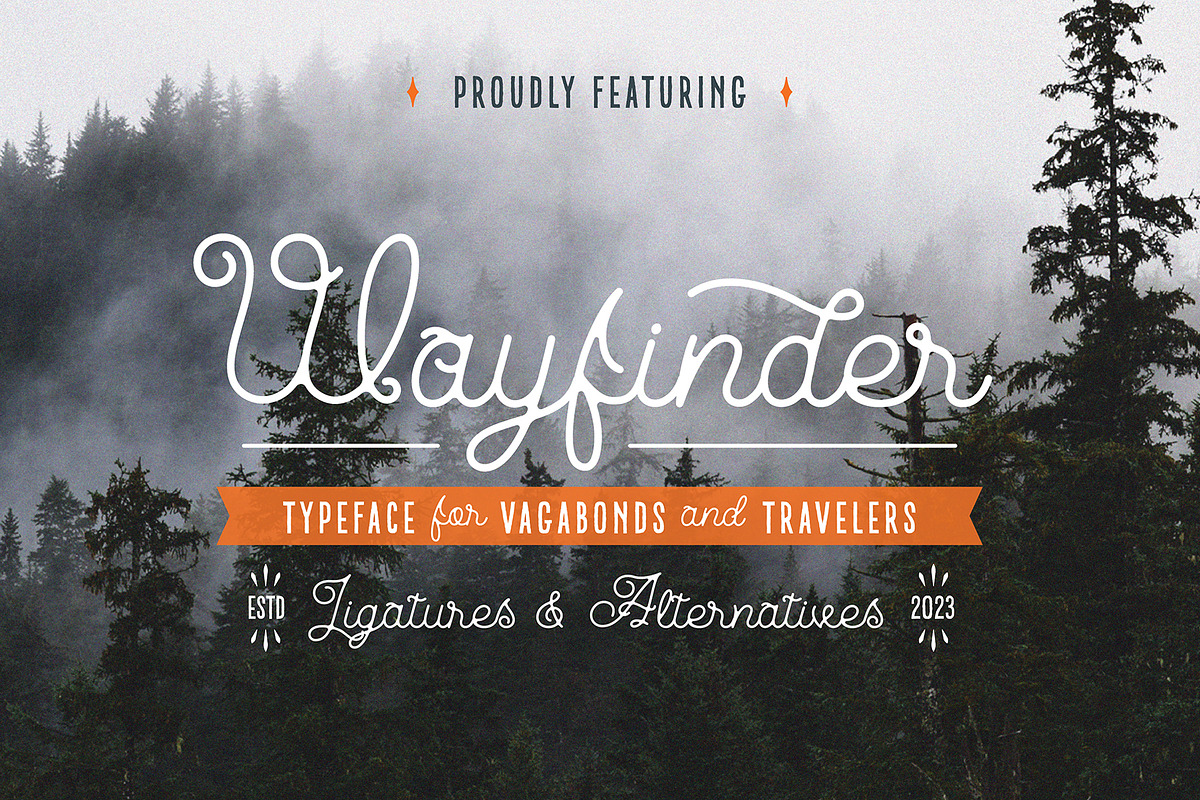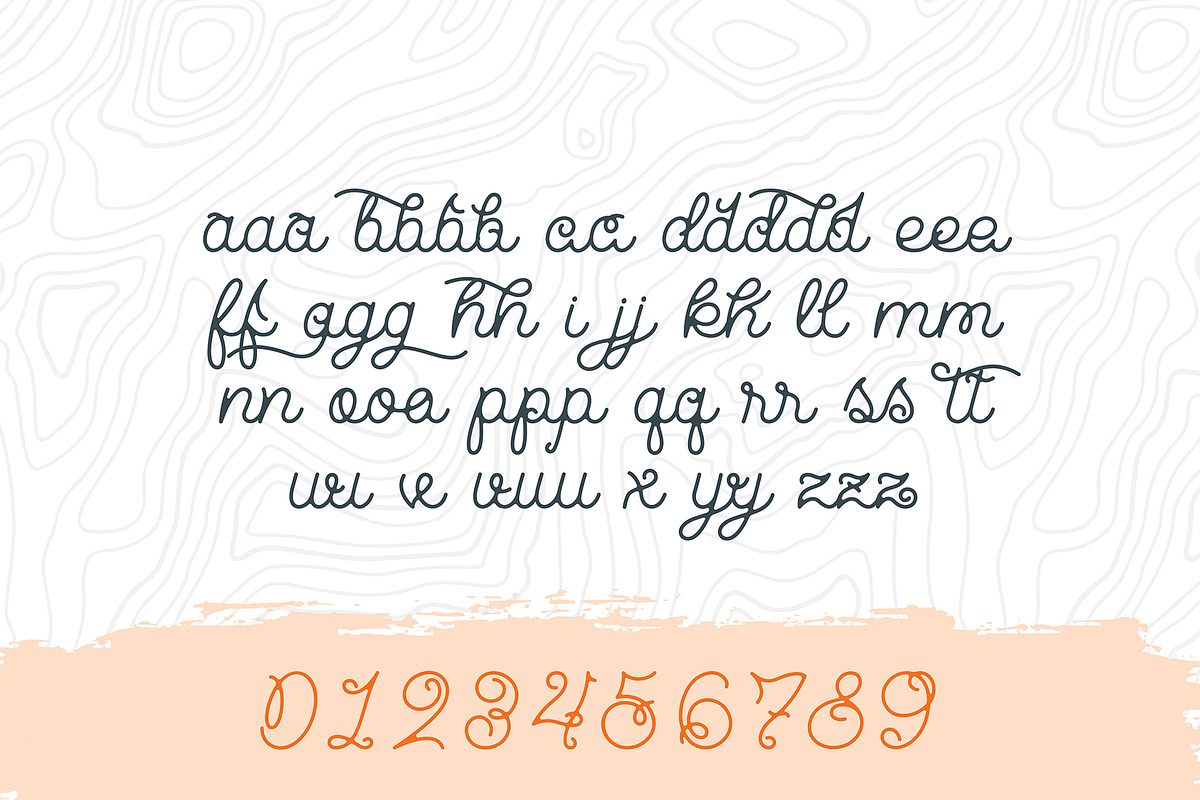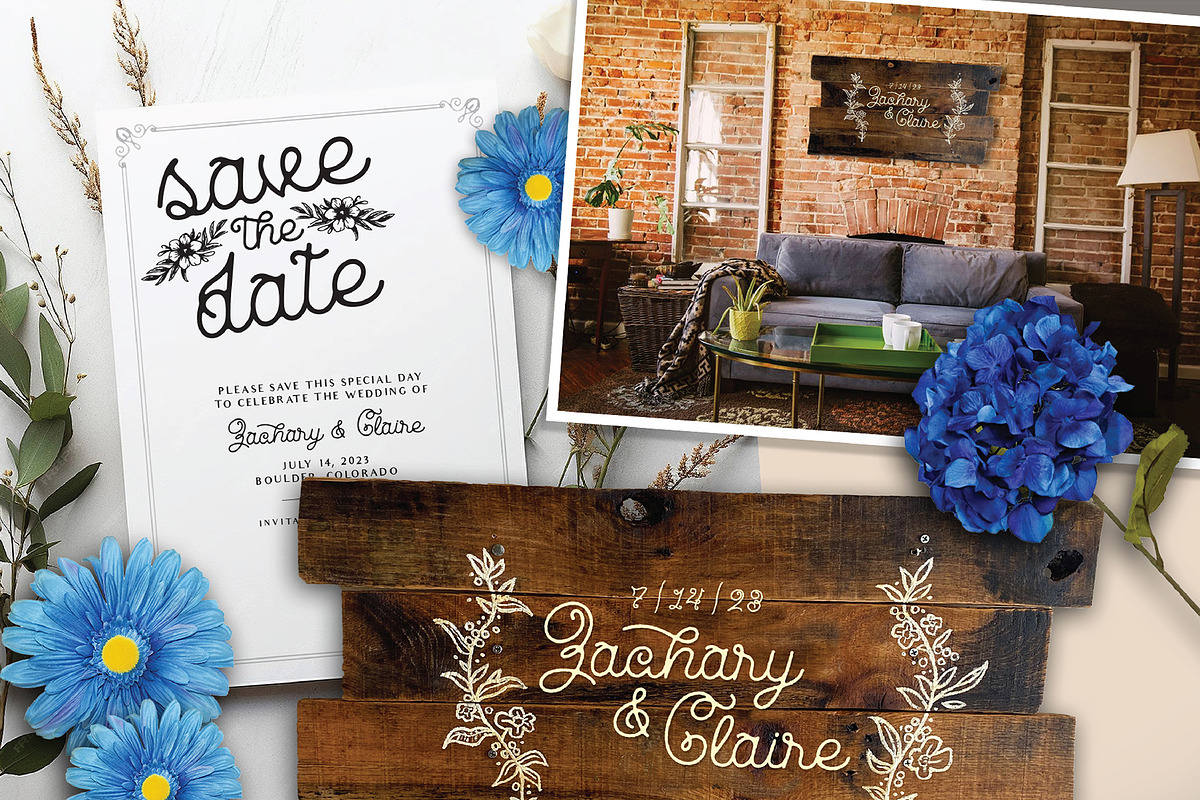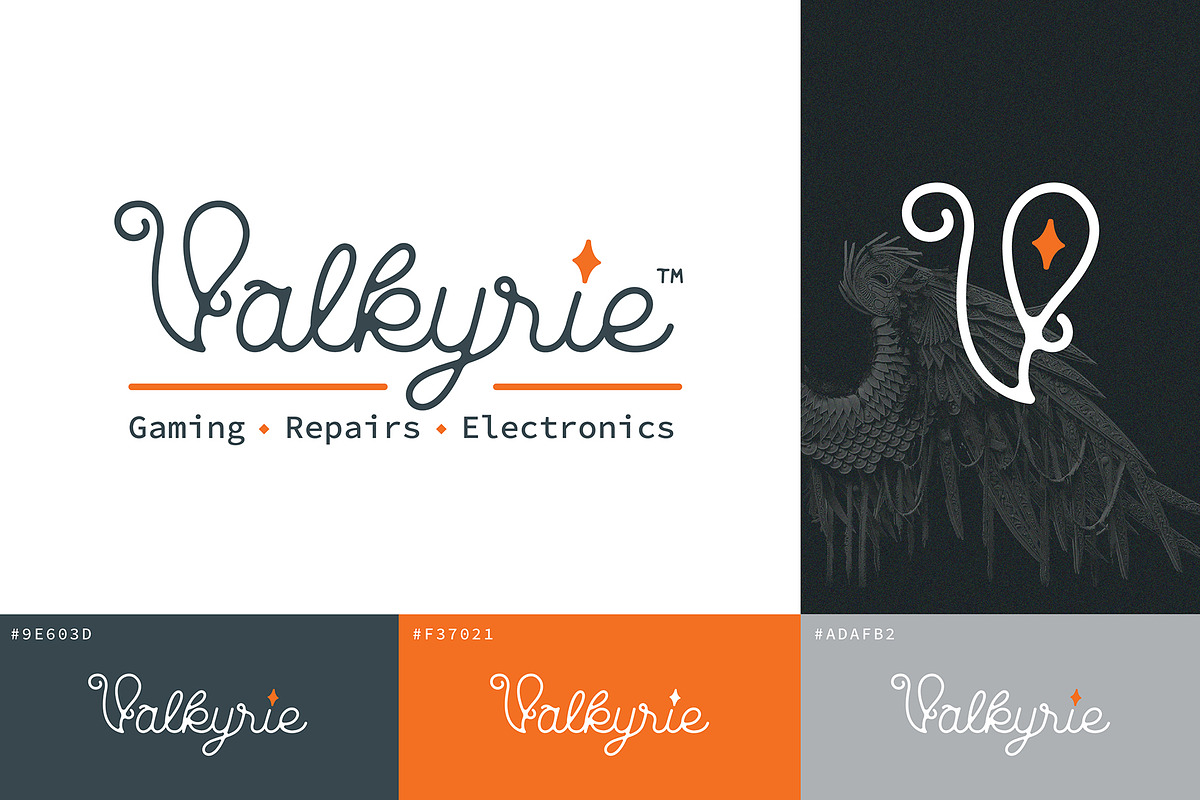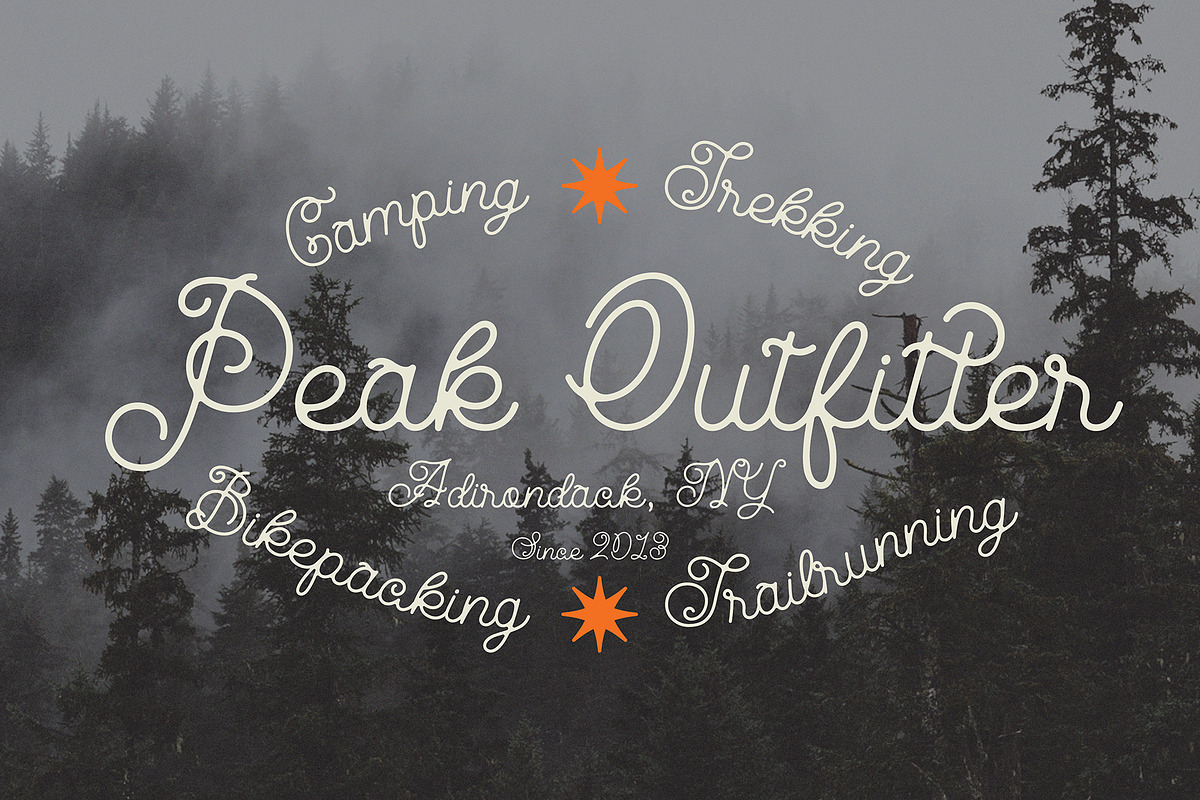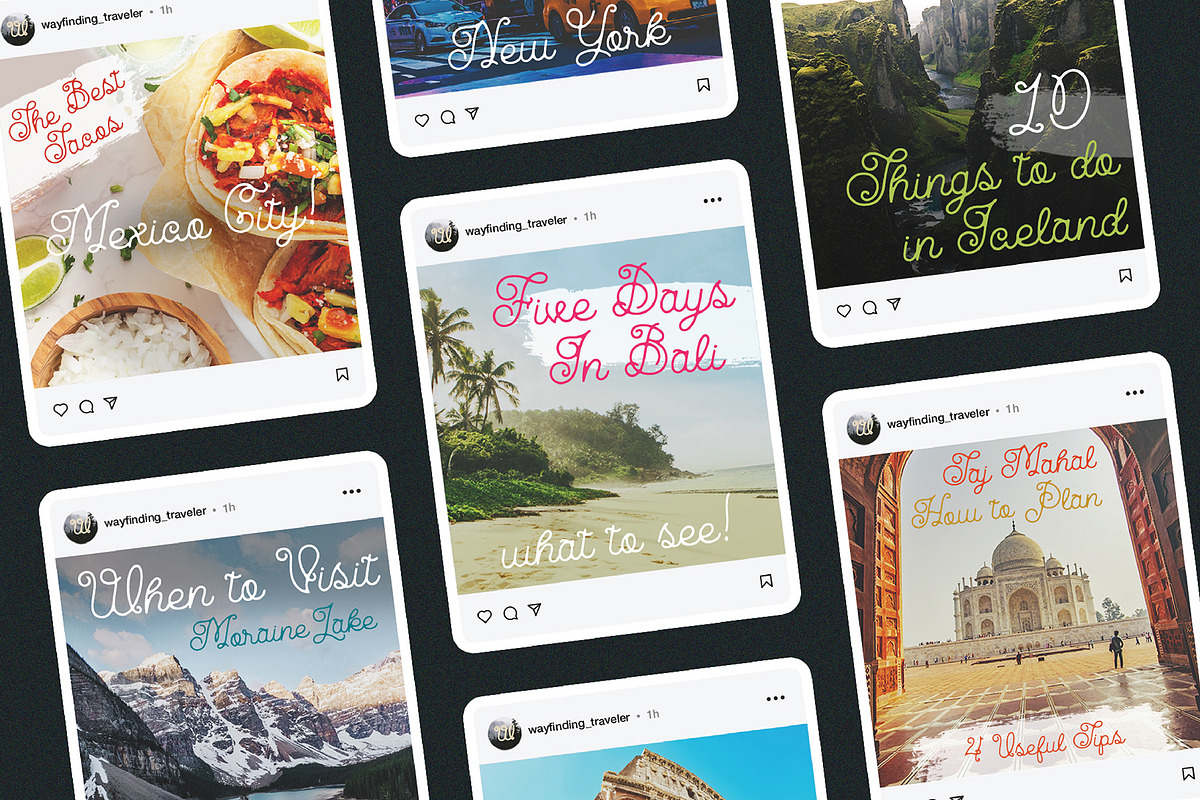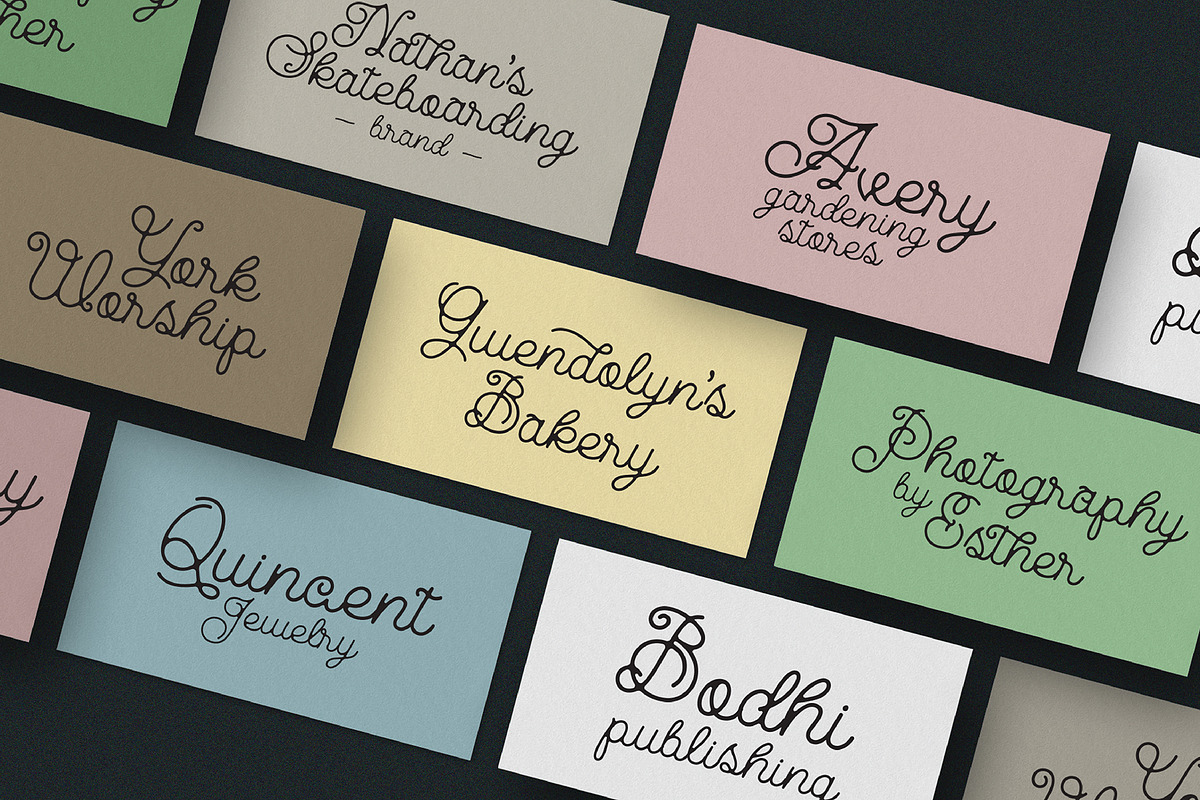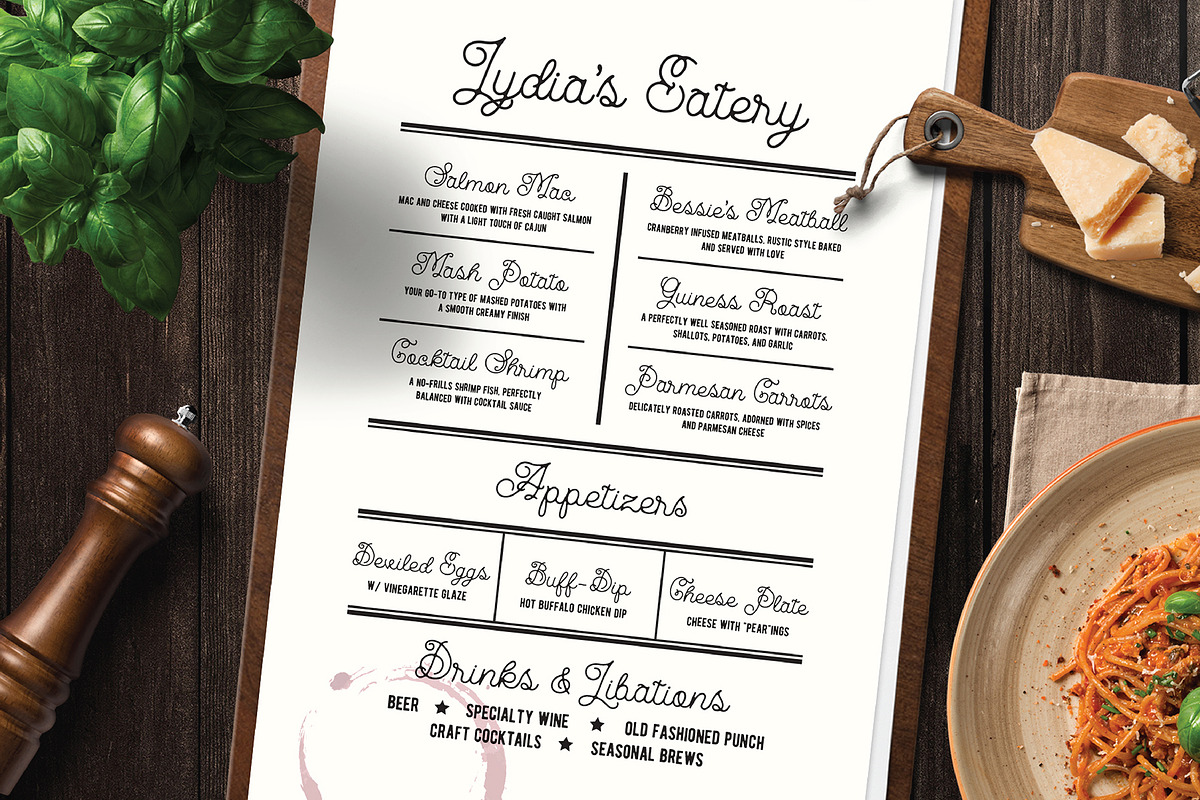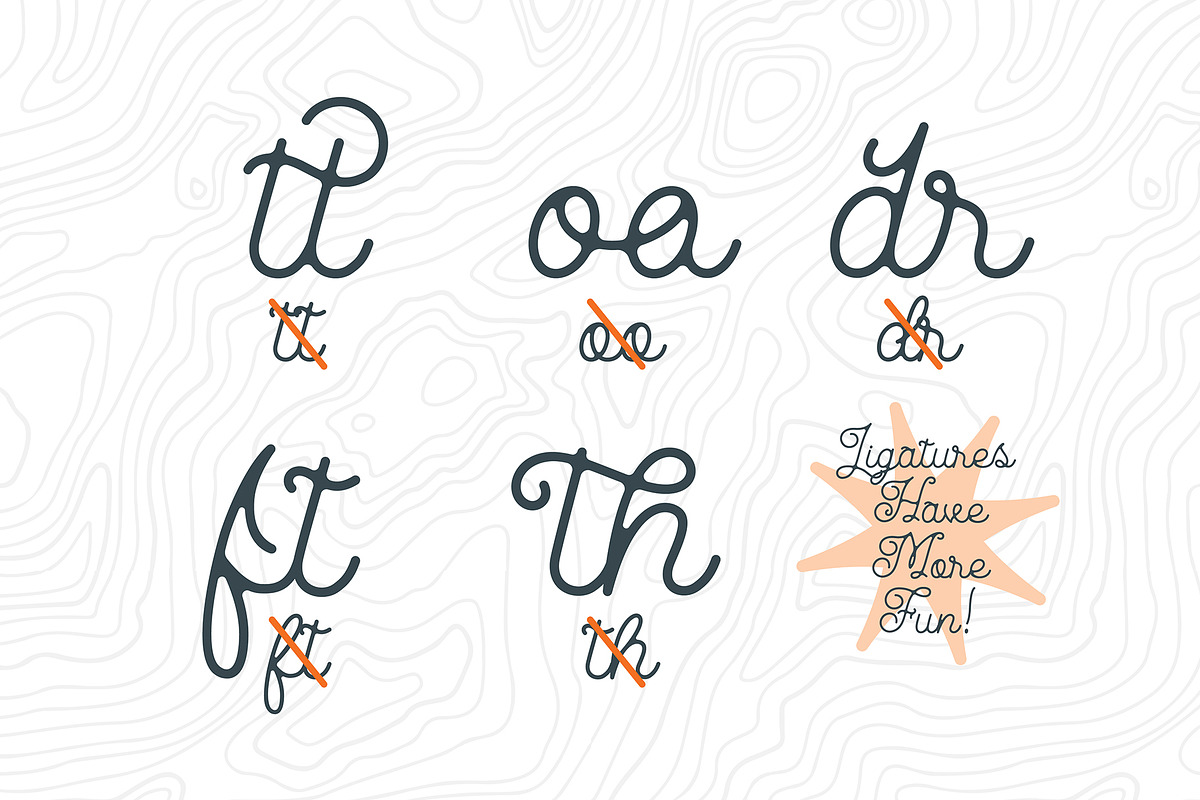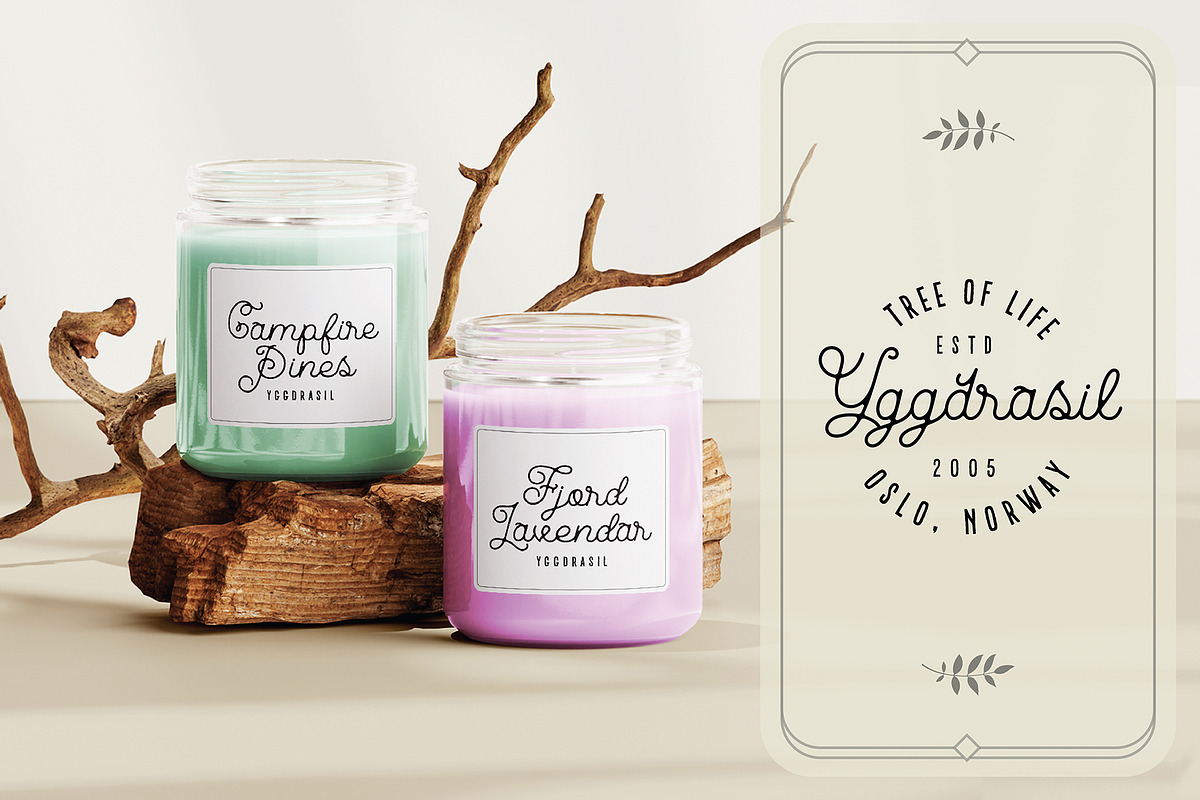
Wayfinder
Wayfinder is a typeface designed with the spirit for adventure. Works beautifully for projects like menus, wedding invites, travel blogs, etc. As you can see, it comes fully equipped with alternative letters, numbers, glyphs and ligatures. The ligatures should optimize organically on their own, however some software may require manual tweaking. Don't be shy and experiment with different letter variations to nail that unique look!
Wayfinder is the perfect typeface to bring on the road for your next creative endeavo